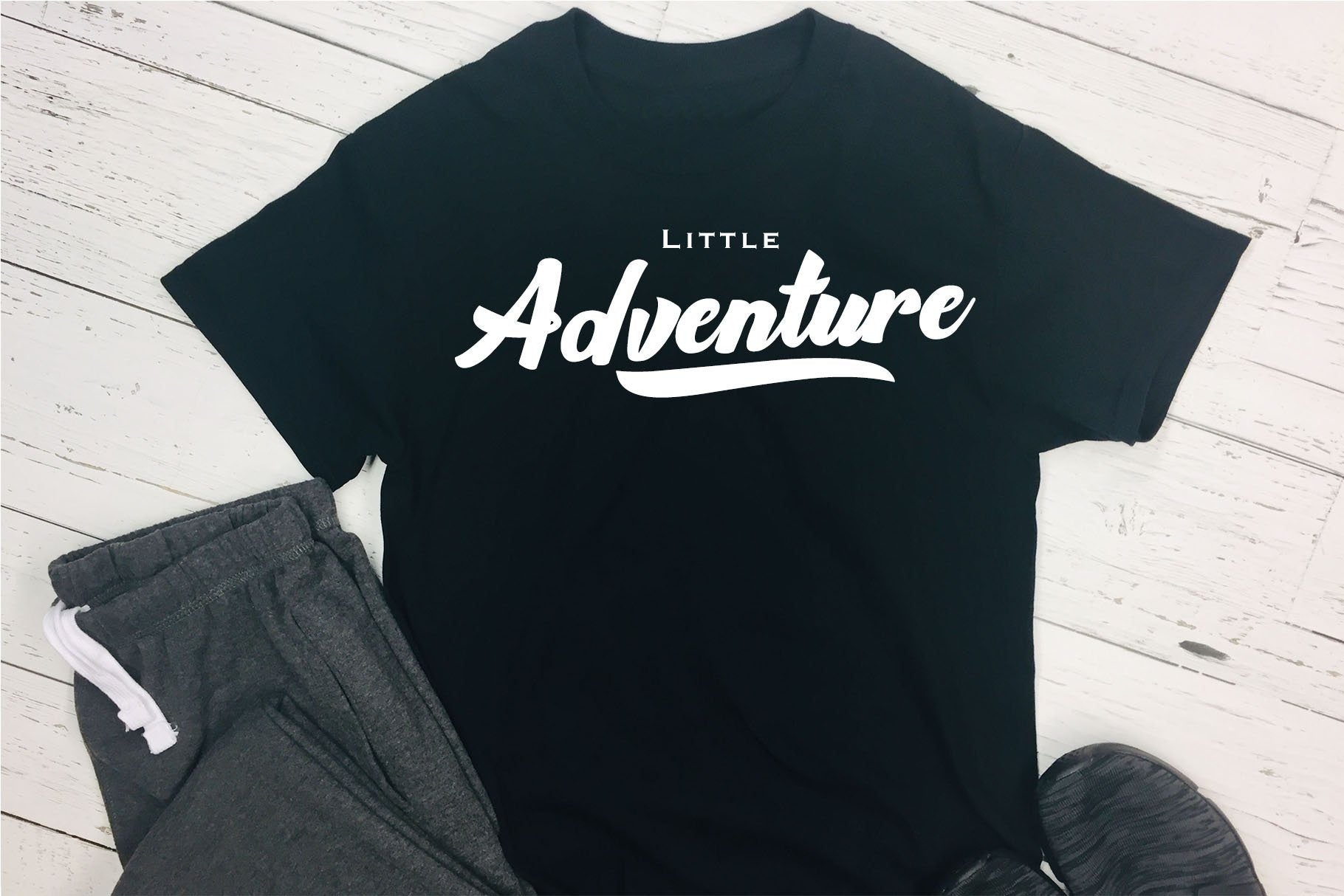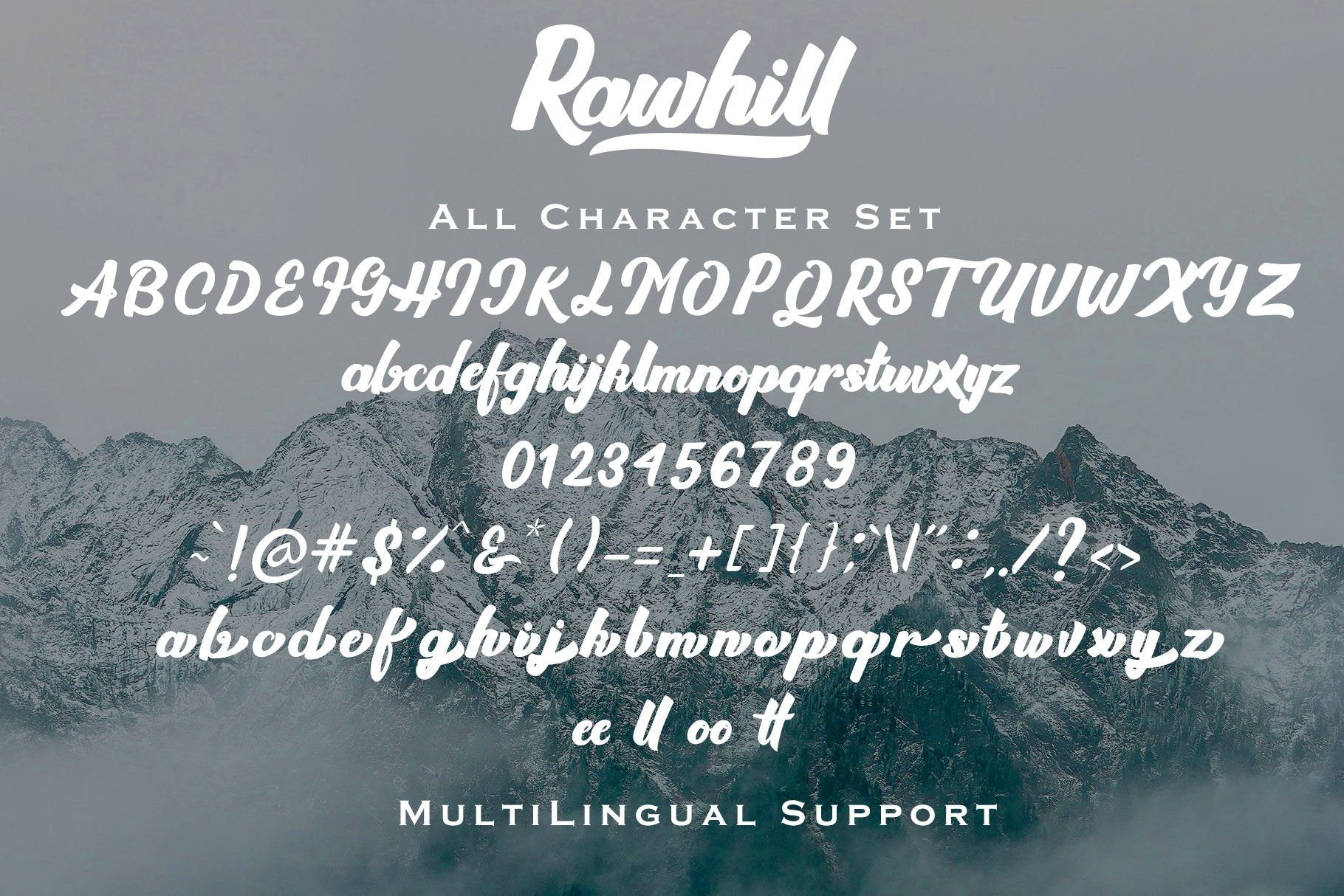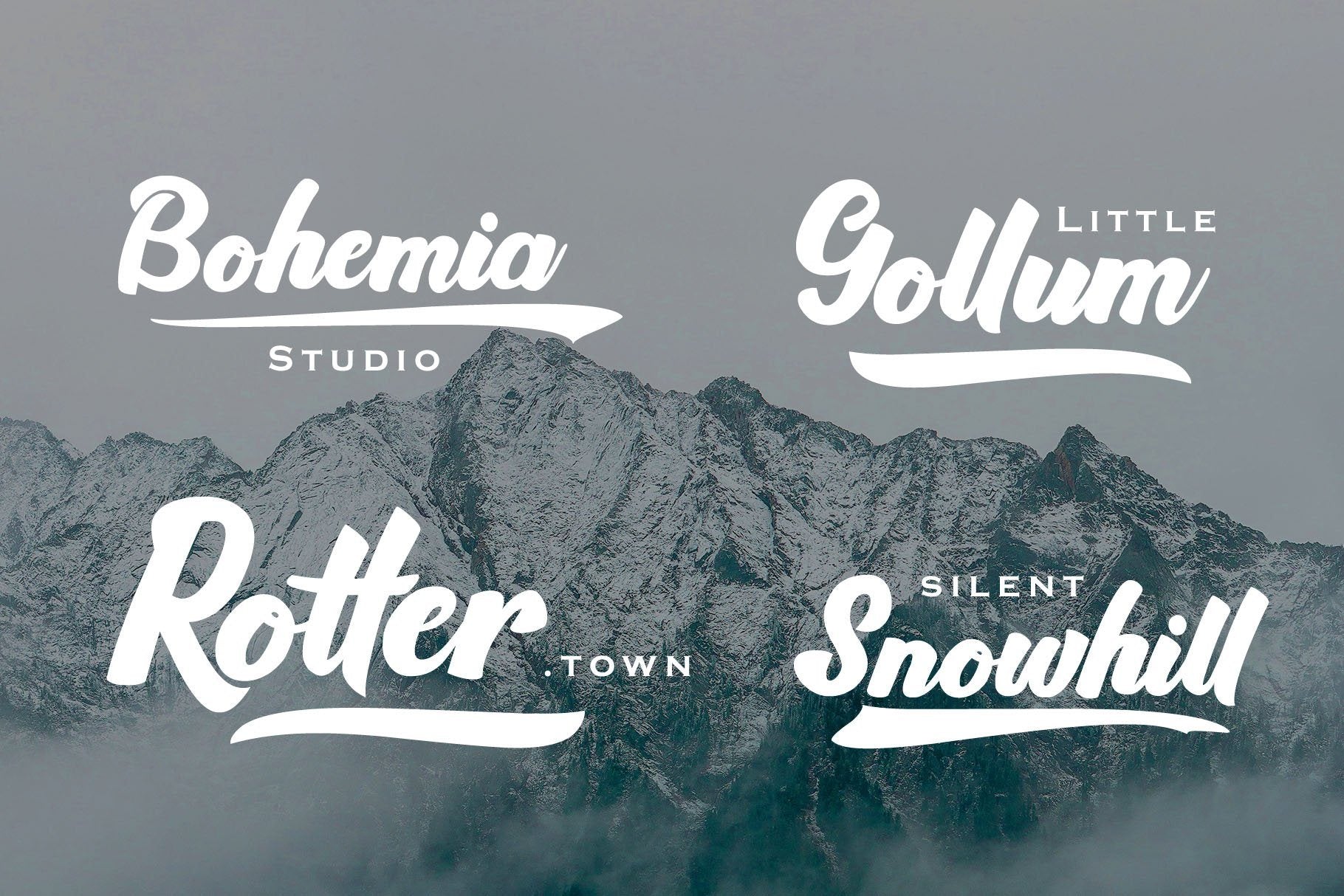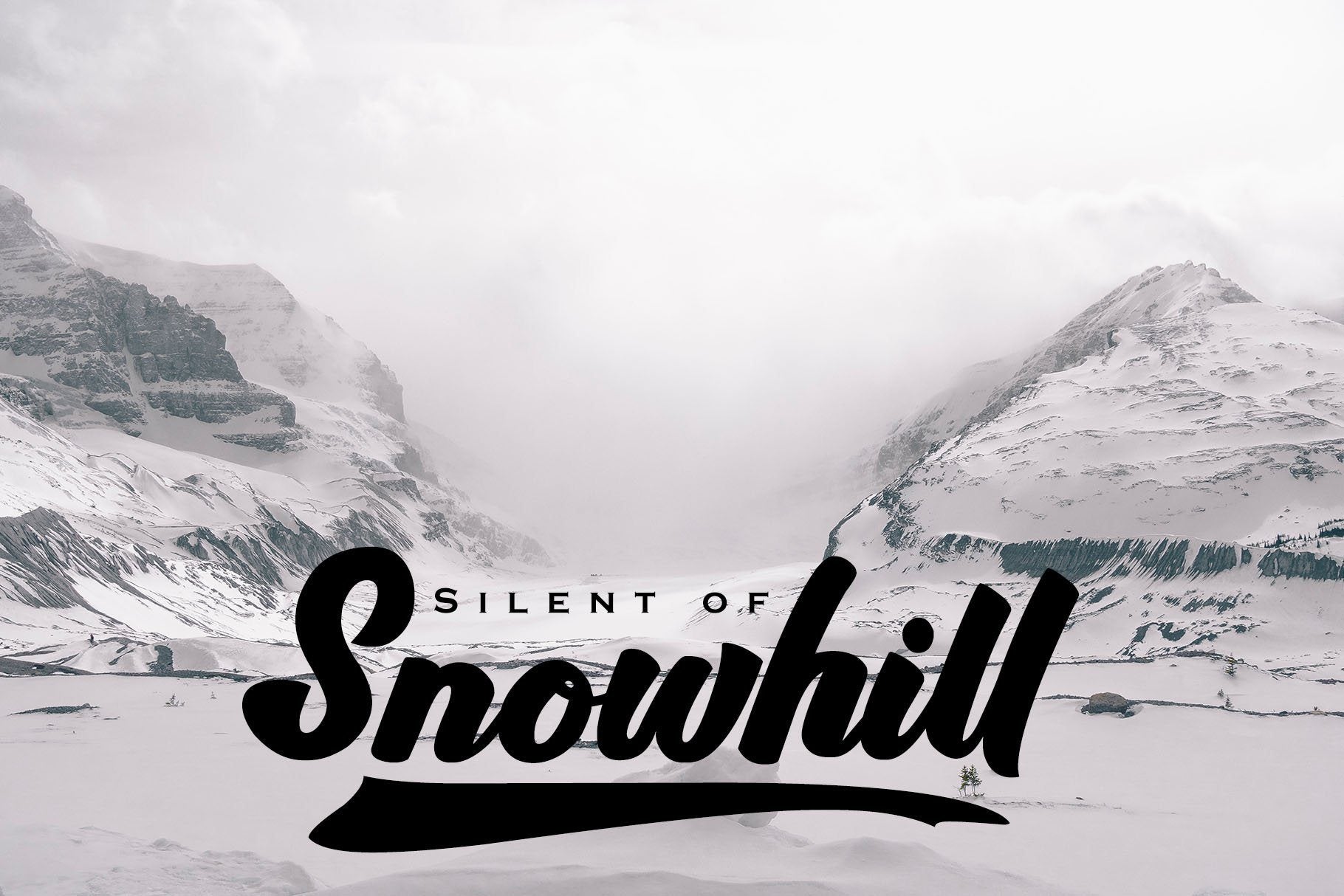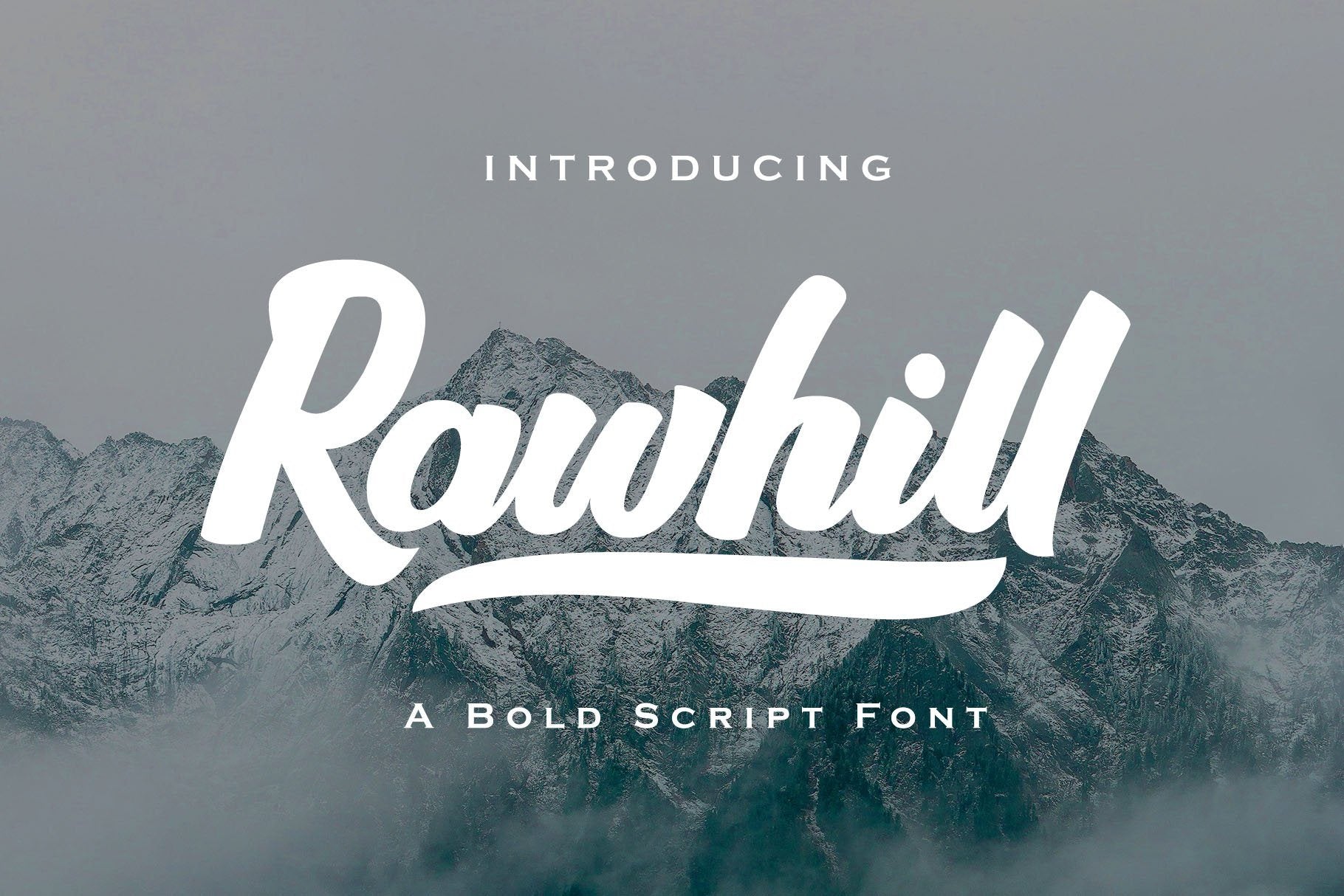
About Rawhill – Bold Script Font
Rawhill is a bold, clean and casual bold script font. It comes with extra attractive swashes, alternative characters and ligatures that will make your design work more easier! Great choice for logo designs, hand lettering projects, posters, branding, apparels, merchandises, packaging, social media posts, etc. Rawhill will give you a simple but strong touch for every design. Features : Uppercase, lowercase, numeric and symbols Multilingual Support Alt characters Ligatures Files Rawhill OTF, TTF, WOFF Rawhill Swash OTF, TTF, WOFF Thanks for your appreciation, happy designing!